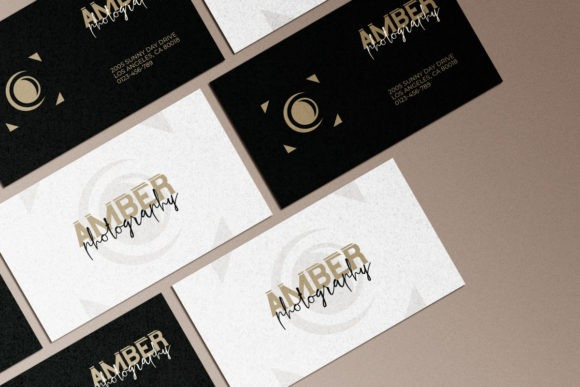
George Sean Font
George Sean consists of two fonts designed to complement each other perfectly. Together or apart, these fonts are ideal for adding a chic and cheery touch to your crafts. This font is PUA encoded which means you can access all glyphs and swashes with ease!